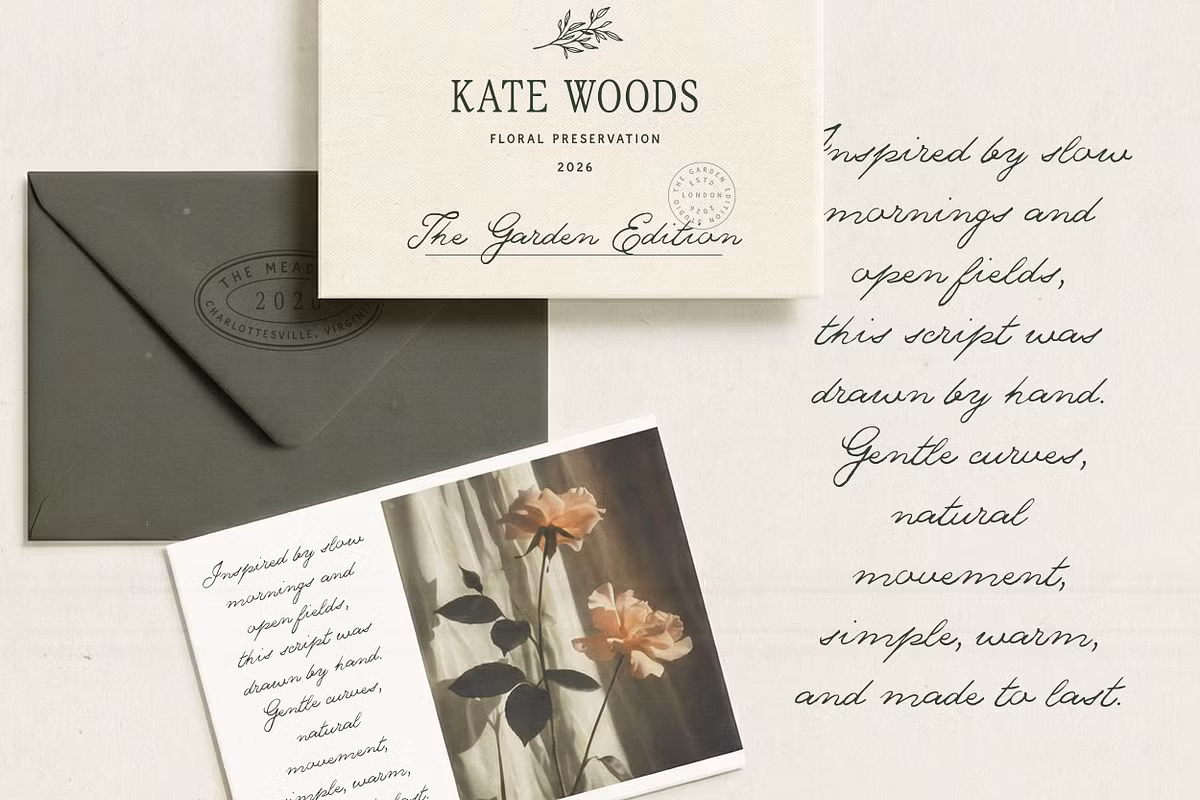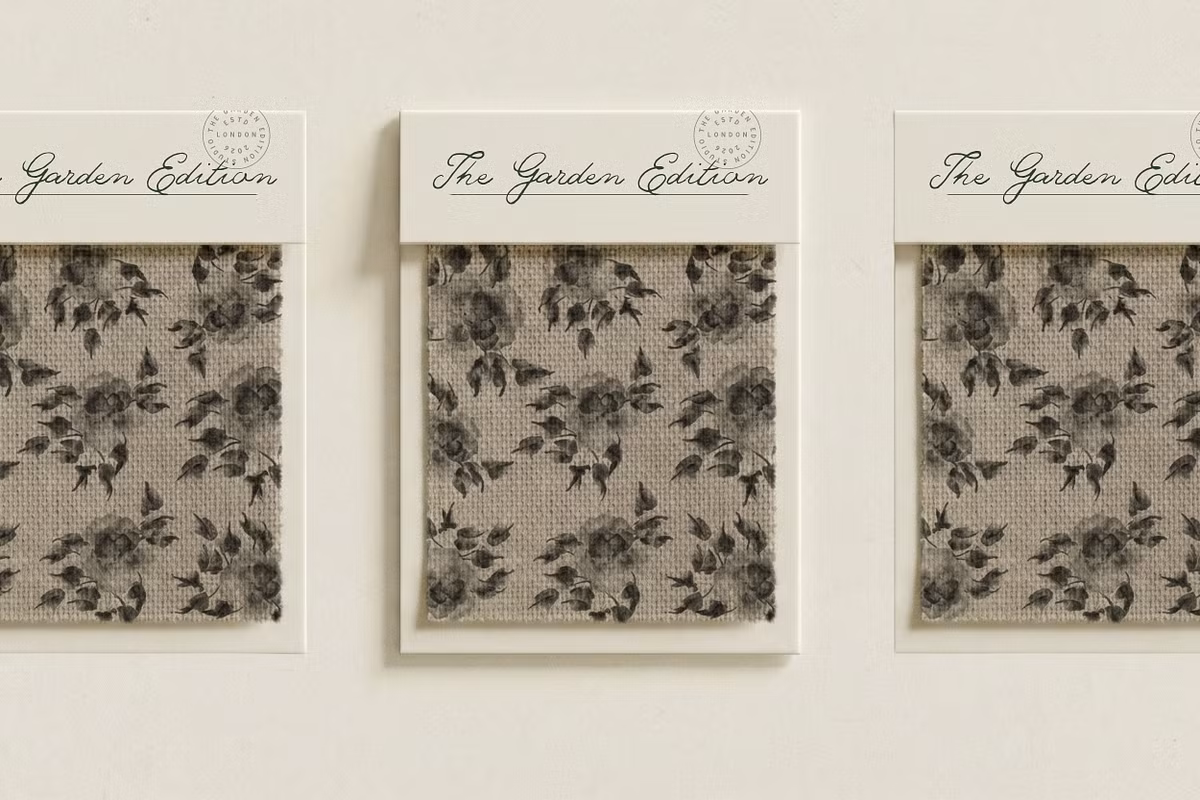
The Meadows is a made font trio that mixes style and function. I see The Meadows as a nod, to the countryside and, to farmers markets. The Meadows has a look that feels warm and inviting. The Meadows aims for a feel and a natural look. The Meadows works. I use The Meadows for projects that need a timeless feel.
The Meadows Font Trio: A Closer Look
The Meadows includes three font styles: a serif, a script and a sans‑serif. The Meadows was carefully made so the fonts work well together and the fonts keep their look. The Meadows lets you mix and match the fonts for your design needs.
The Meadows Sans
The Meadows Sans comes in Light and Regular weights. The Meadows Sans gives a look that works for many projects. Use The Meadows Sans, for body text in your designs so the text stays readable and feels fresh. The sans‑serif style of The Meadows Sans fits with fonts. The Meadows Sans works for headings or subheadings that need to stand out.
The Meadows Script
The Meadows Script comes in Regular, Slanted, Bold and Bold Slanted variations. The Meadows Script is a choice, for adding a touch to your designs. Whether you are making wedding invitations or social media graphics The Meadows Script adds flair that catches the eye. The flowing lines of The Meadows Script give a sense of warmth and familiarity. The Meadows Script works well for brands that value connection.
The Meadows Serif
The Meadows Serif comes in Tall variations. I have used The Meadows Serif, in layouts and branding projects. I find The Meadows Serif easy to work with. The Meadows Serif adds depth and detail to designs. I have also used The Meadows Serif for magazines, packaging and product labels. The Meadows Serif has a look that helps a brand stand out while staying rooted in tradition.
Enhancing Your Designs with The Meadows Extras
In addition, to the three font styles The Meadows includes 20 logo templates and 20 handmade illustrations. I find that The Meadows gives me everything I need to start a brand. The Meadows extras help you build brand identities easily. The Meadows logo templates give you a starting point for an identity. The Meadows illustrations add a look that matches the feel of the font collection. The Meadows provides a package, for designers who want a brand image.
Features of The Meadows
- The font trio includes the sans‑serif style, the script style and the serif style.
- 20 Logo Templates: The Logo Templates are ready to use. The Logo Templates can be customized to fit your brand.
- 20 Handmade Illustrations: Handmade Illustrations provide the graphics that improve your branding.
I am curious, about who can benefit from The Meadows. I have used The Meadows for my projects. I see how The Meadows helps with design work. The Meadows works well for projects. If you are a designer working on:
- Wedding invitations and stationery
- Editorial layouts and magazines
- Branding and visual identities
- Logos and signature marks
- Packaging and product labels
- Quotes, posters, and social media graphics
The Meadows will give you the tools you need to make steady and nice looking designs. The flexibility of The Meadows makes The Meadows essential, for anyone who wants to bring a style to their work.
Conclusion: Why Choose The Meadows?
The Meadows is not a font trio. The Meadows is a design package that shows the feeling of countryside life and old style look. The Meadows brings together three different font styles. The Meadows also adds things, like logo templates and handmade illustrations. I tried The Meadows and The Meadows helped me make a brand and a nice invitation. The Meadows is a tool, for a designer who wants to make simple designs. The Meadows gives you the flexibility and style to turn your ideas into work.